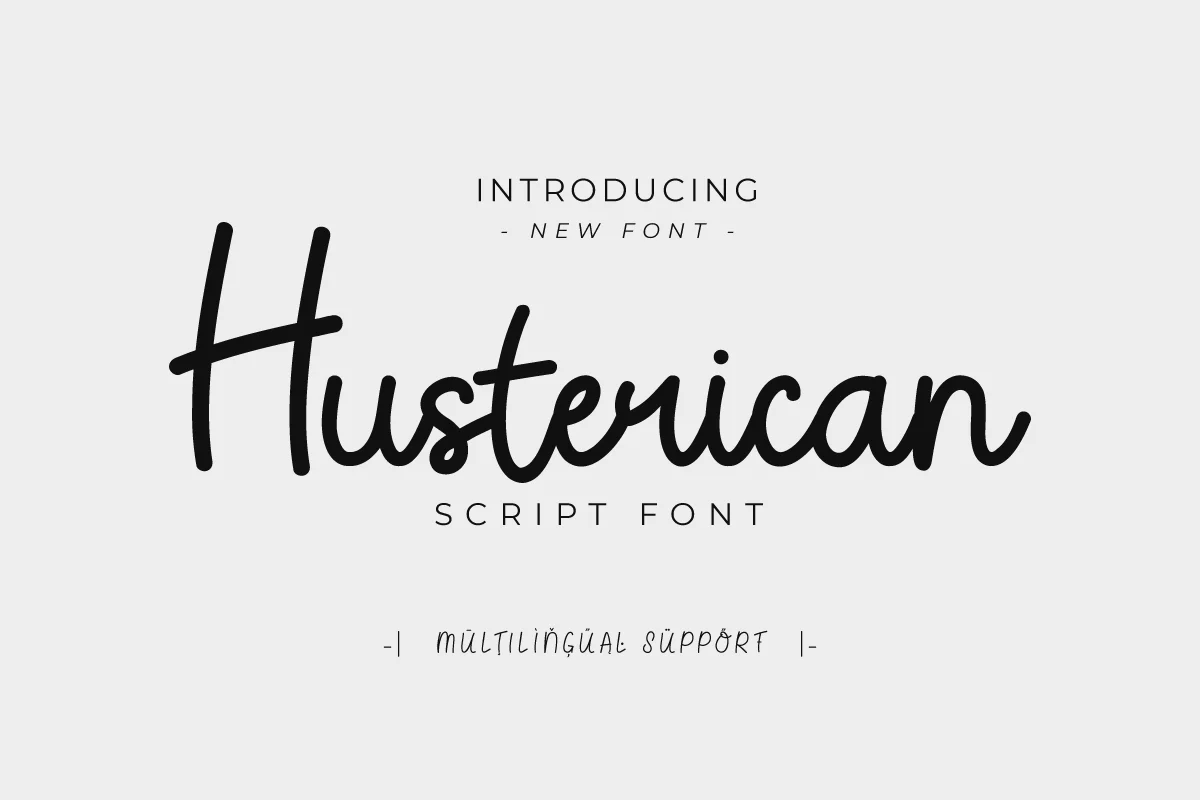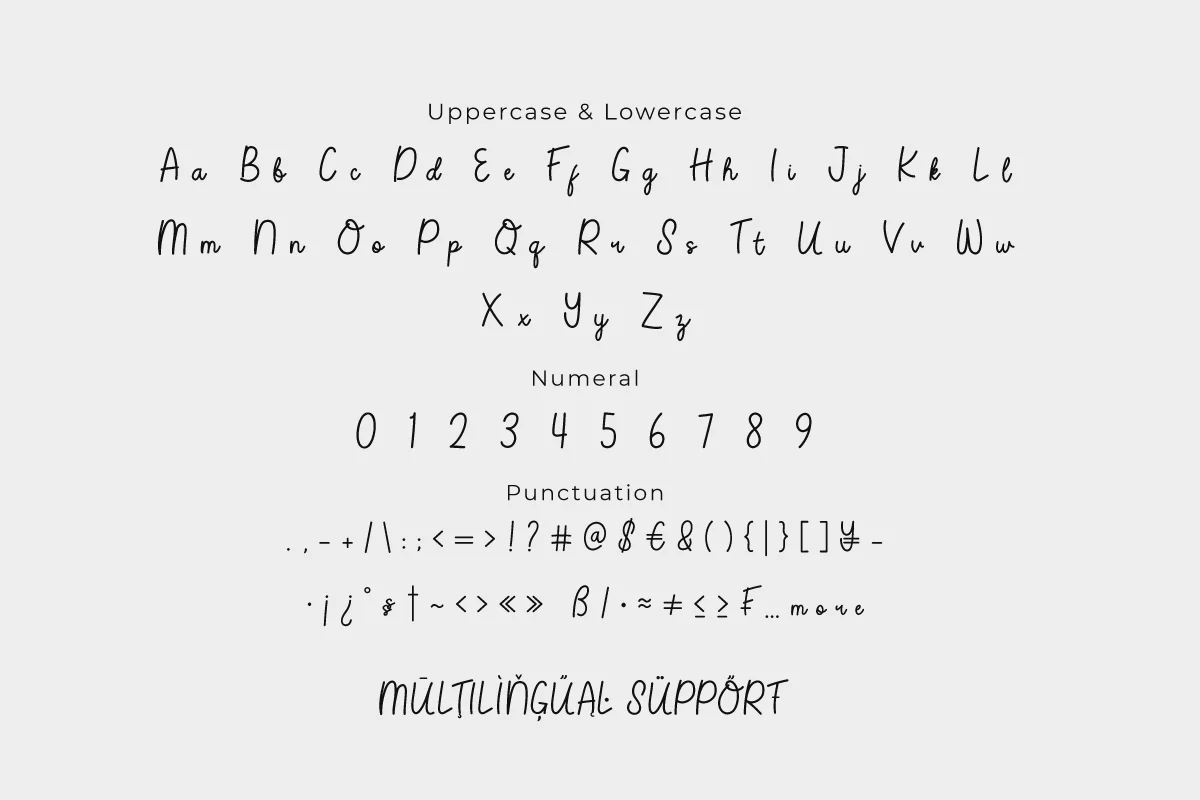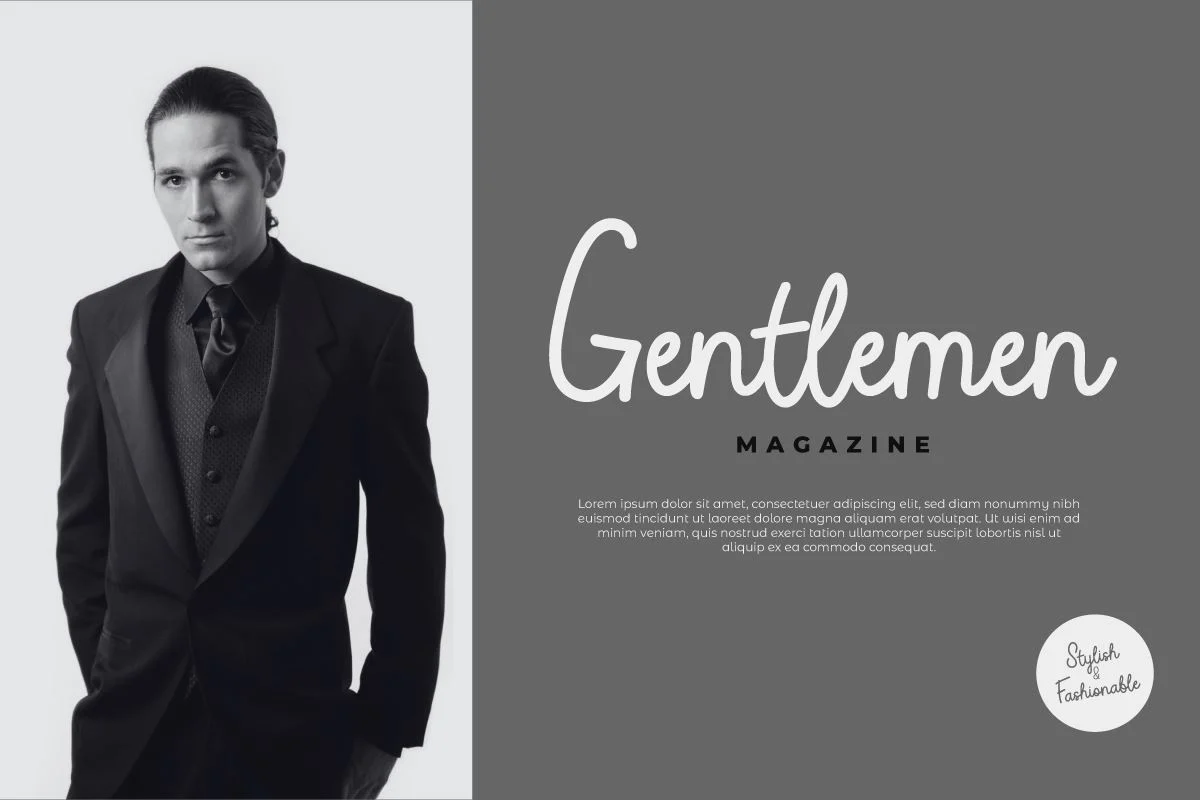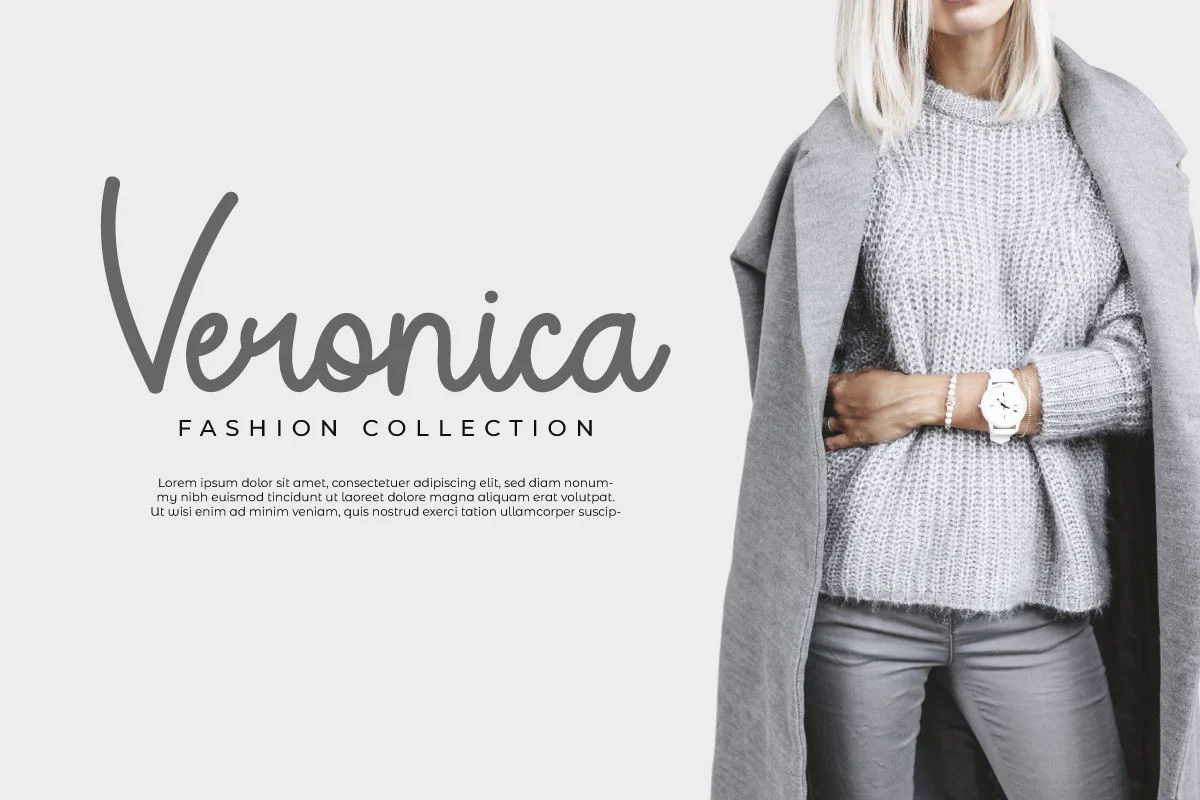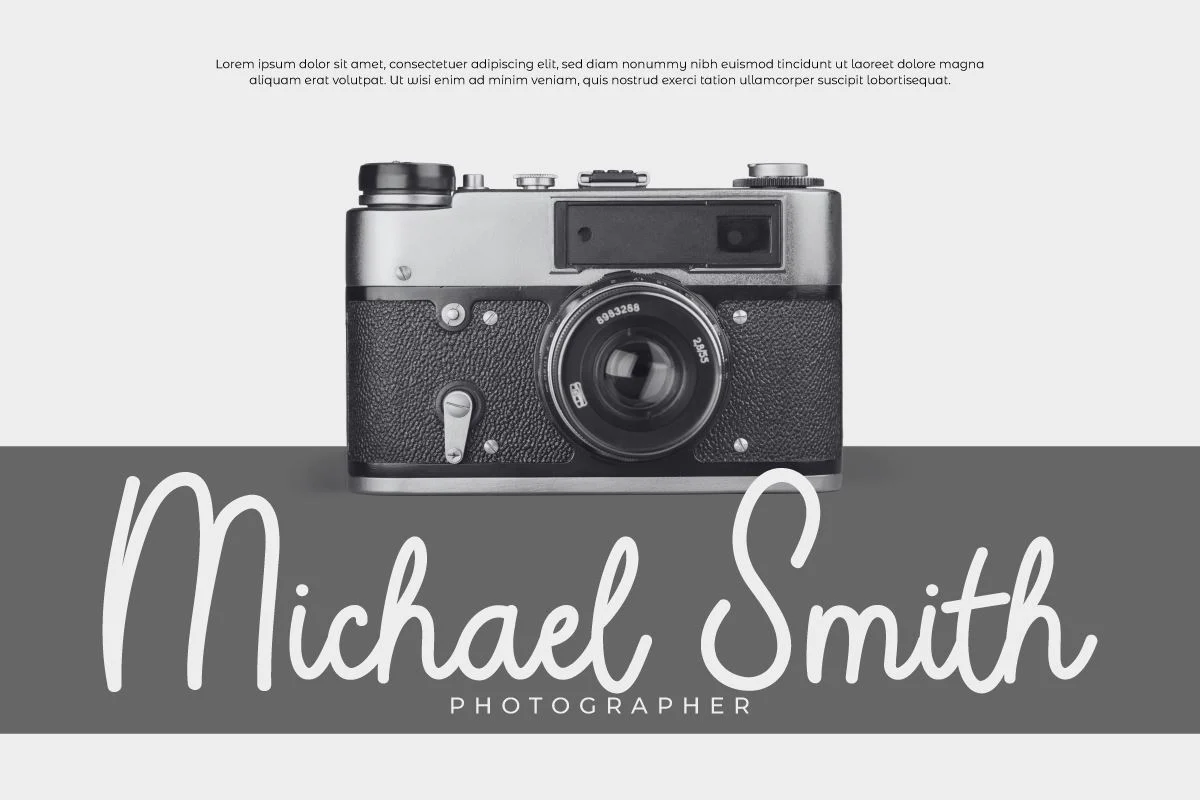
Husterican - Script Font
Husterican is the perfect blend of elegance and boldness in monoline typography. With each precise curve and elegant design, this font offers a classy and modern impression. Husterican is suitable for a variety of projects, from logo design to promotional materials. Each letter creates a powerful and impressive atmosphere, ensuring that your design exudes undeniable elegance and professionalism. With Husterican, every detail becomes an alluring and stunning work of art.